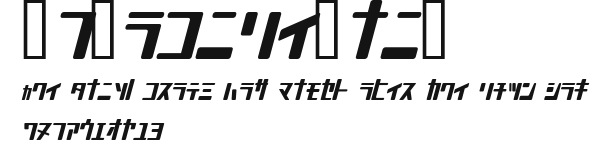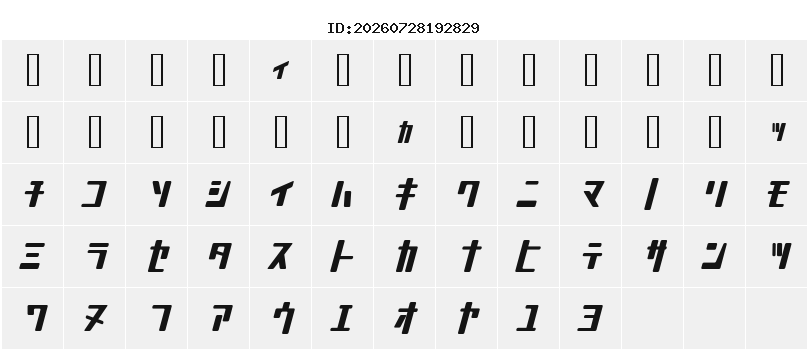
I2MobileSui￿ Preview
• Font Name: I2MobileSui￿
• Full Font Name: I2MobileSui￿
• PostScript Name: I2MobileSui￿
About I2MobileSui￿.ttf
I2MobileSui￿.ttf is a modern, elegant sans-serif font designed for ultimate readability and visual harmony. Perfect for branding, headlines, web design, and print materials.